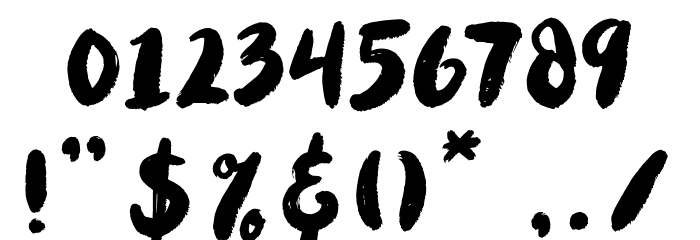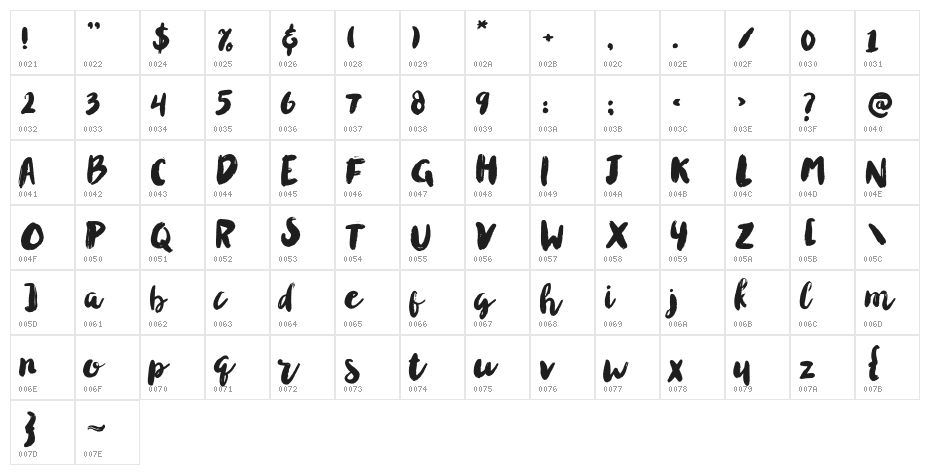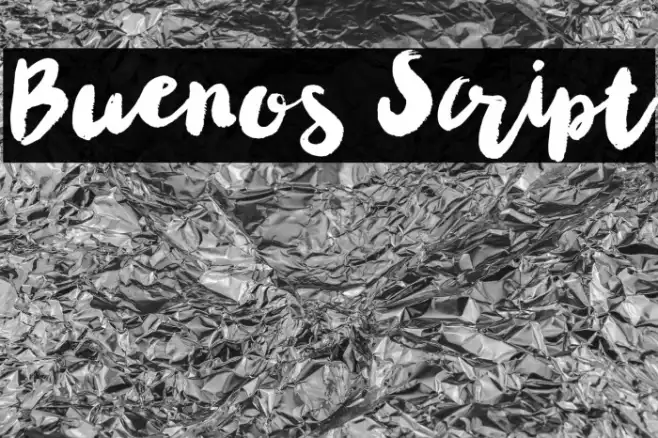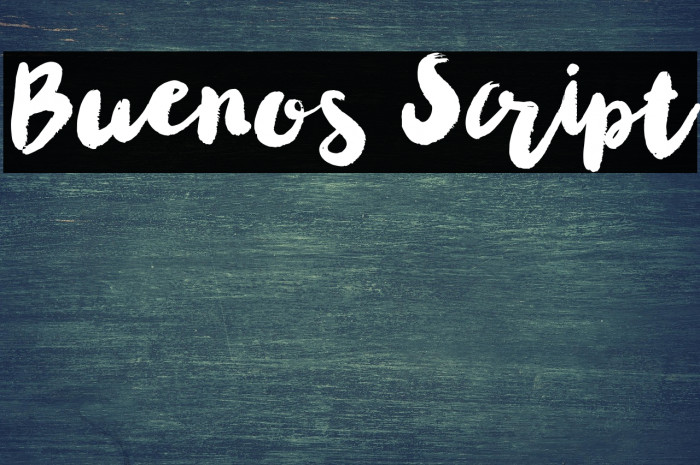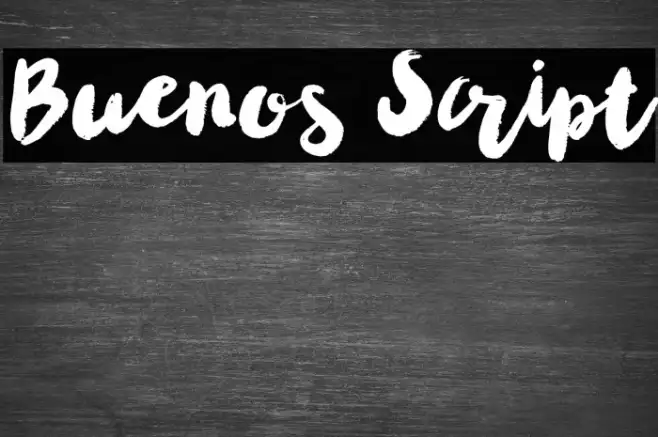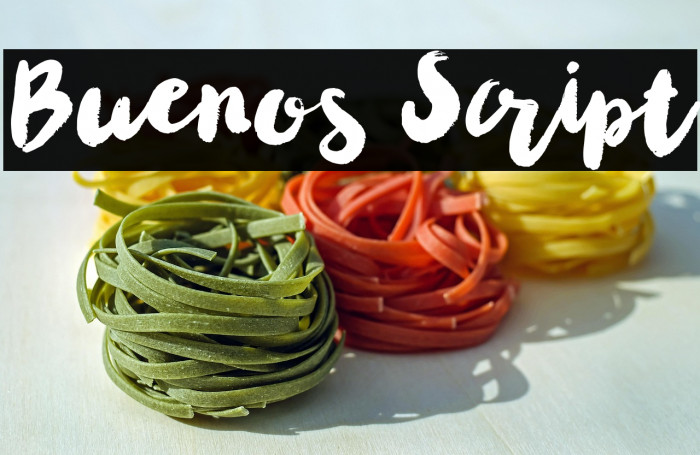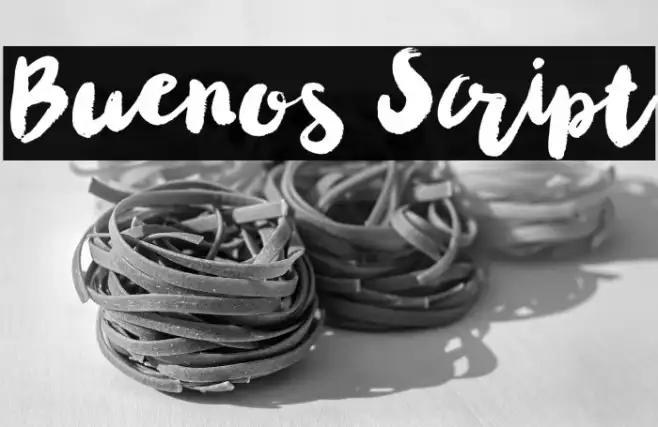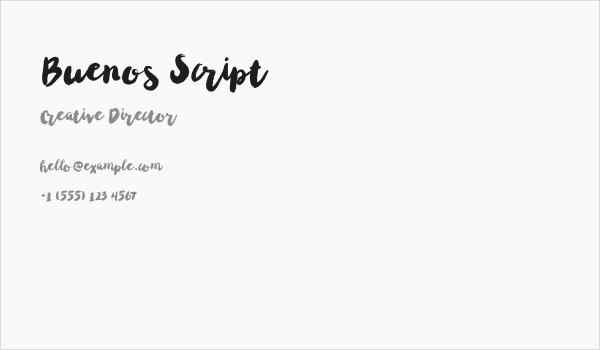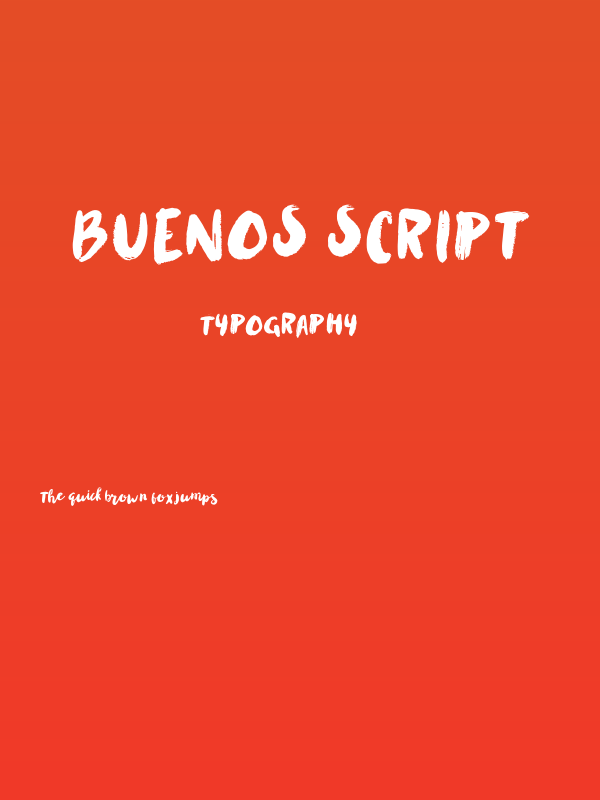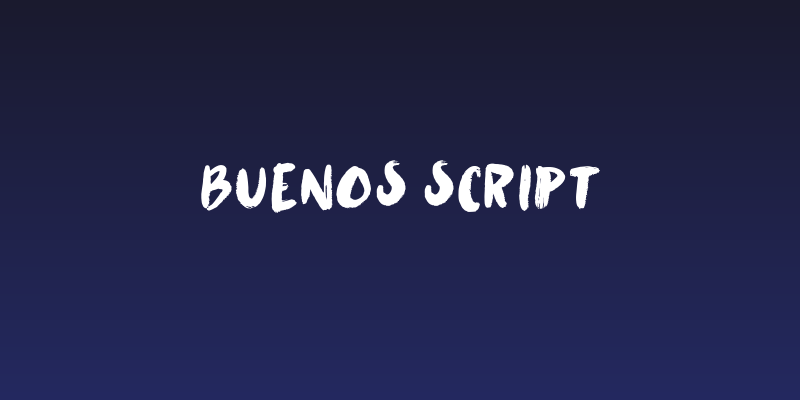
Buenos Script Font
Buenos Script Description
This font exudes a bold and expressive style, characterized by its brush-like strokes that convey a sense of dynamism and energy. The letters have a hand-painted appearance, with varying thicknesses that add a lively and organic feel. The uppercase and lowercase letters maintain a consistent flow, while the numbers and special characters integrate seamlessly with the overall aesthetic. This font's artistic flair makes it suitable for projects that require a personal touch or a creative edge.
| Proposed Projects | Ideal for branding, posters, invitations, and any creative projects that benefit from a personal and artistic touch. |